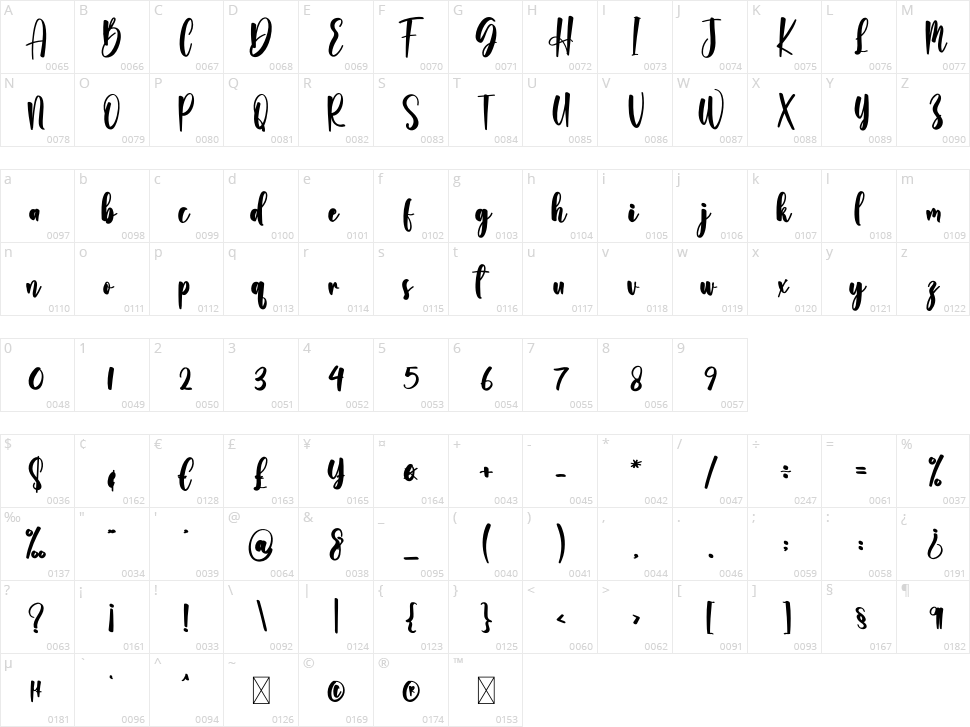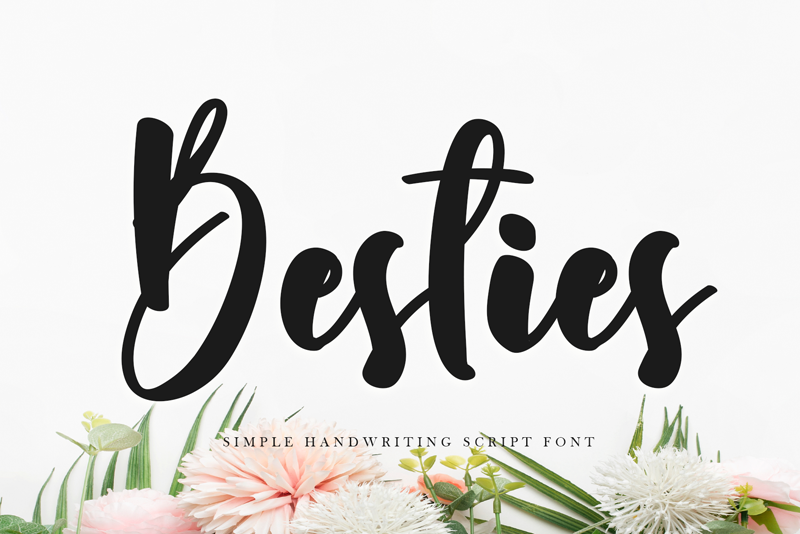
Besties
This font retains a classy calligraphic influence while feeling contemporary and fresh. This versatility will attract a wide range of creative ideas, from letterheads and titles to stationery.